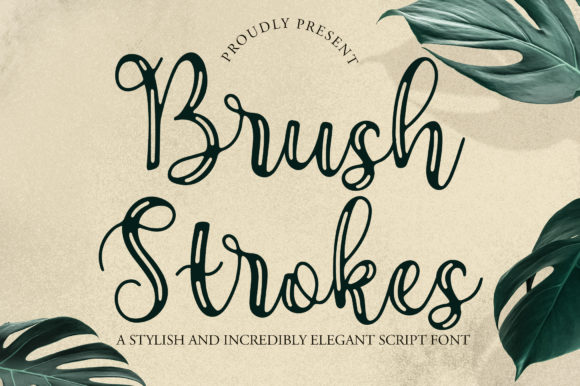
The Brush Strokes Font: Elevate Your Designs with Elegance
I’ll never forget the time I was working on a wedding invitation project, and my client asked for a font that would make their special day feel truly unique and personal. I scoured the internet, trying out font after font, but nothing seemed quite right. That was until I stumbled upon the Brush Strokes font. With its stylish and incredibly elegant script, it was love at first sight! ✨
I’ve had the pleasure of working with Brush Strokes on several projects, and here’s what I think:
• ✅ Elegant and sophisticated: Brush Strokes adds a touch of luxury to any design, making it perfect for high-end projects.
• ✅ Versatile: From wedding invitations to business cards, this font adapts seamlessly to various design applications.
• ✅ Easy to read: Despite its elegant nature, Brush Strokes remains surprisingly legible, even at smaller font sizes.
Now, I’m not saying it’s perfect. There are a few quirks to consider:
• ⚠️ Limited use in body text: While Brush Strokes is stunning in headings and titles, it can become a bit too ornate for longer blocks of text.
• 🤔 Requires some kerning adjustments: Depending on the specific words or phrases you’re using, you may need to tweak the kerning to ensure the text looks its best.
One of the standout features of Brush Strokes is its support for OpenType features. These allow you to access:
• Stylistic alternates: Swap out certain characters for alternate versions, adding more variety to your text.
• Glyphs: Access additional symbols and ornaments to embellish your designs.
By exploring these features, you can unlock even more creative possibilities with Brush Strokes.
The Story Behind Brush Strokes
Brush Strokes was designed with the intention of capturing the elegance and sophistication of handwritten script. The designer aimed to create a font that would feel both luxurious and approachable, perfect for a wide range of design applications. While the exact story behind Brush Strokes might be shrouded in mystery, its impact on the design world is undeniable.
What makes Brush Strokes so special? Its elegant and sophisticated script style, combined with its versatility and ease of use.
Is Brush Strokes difficult to read? No, despite its elegant nature, Brush Strokes remains surprisingly legible, even at smaller font sizes.